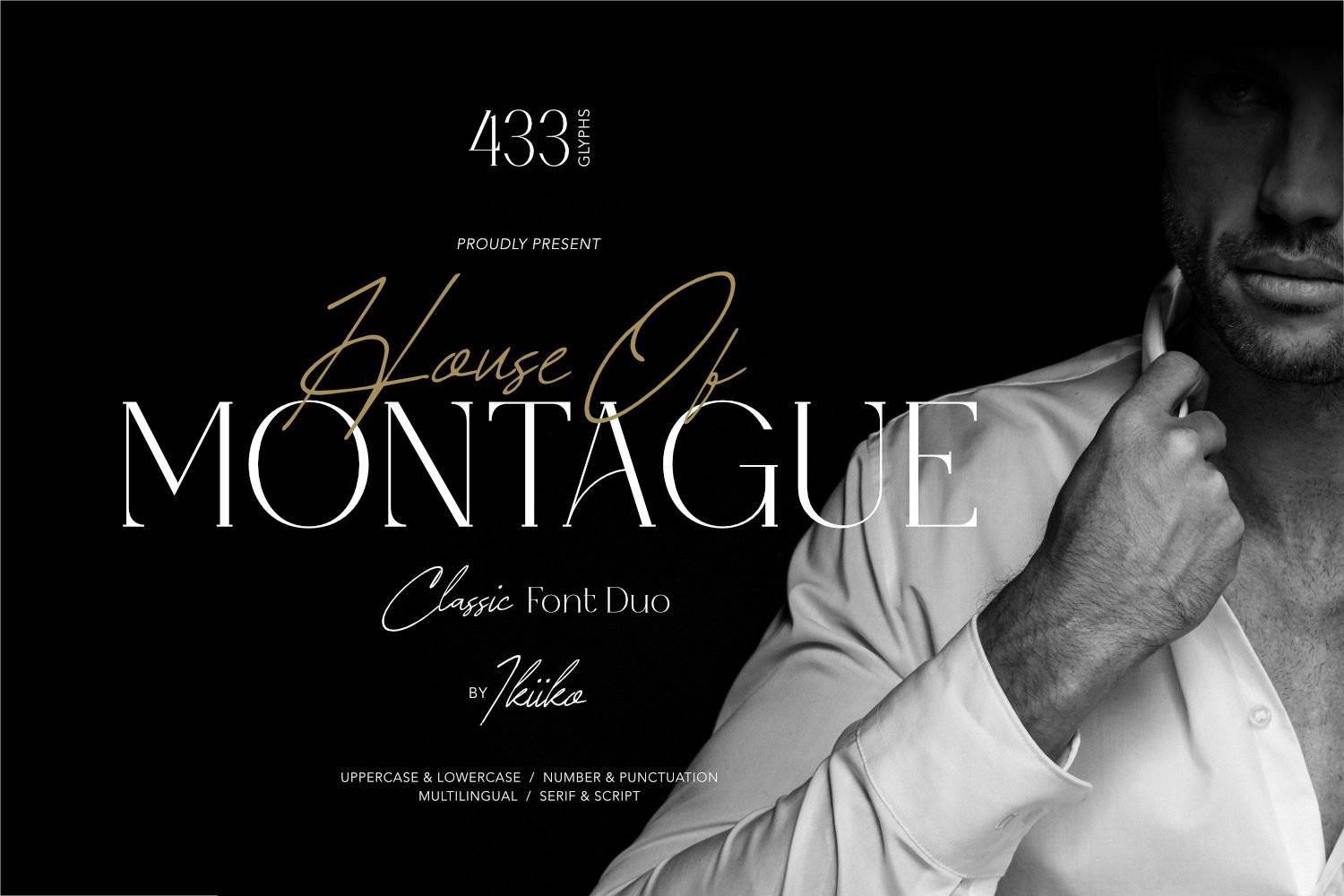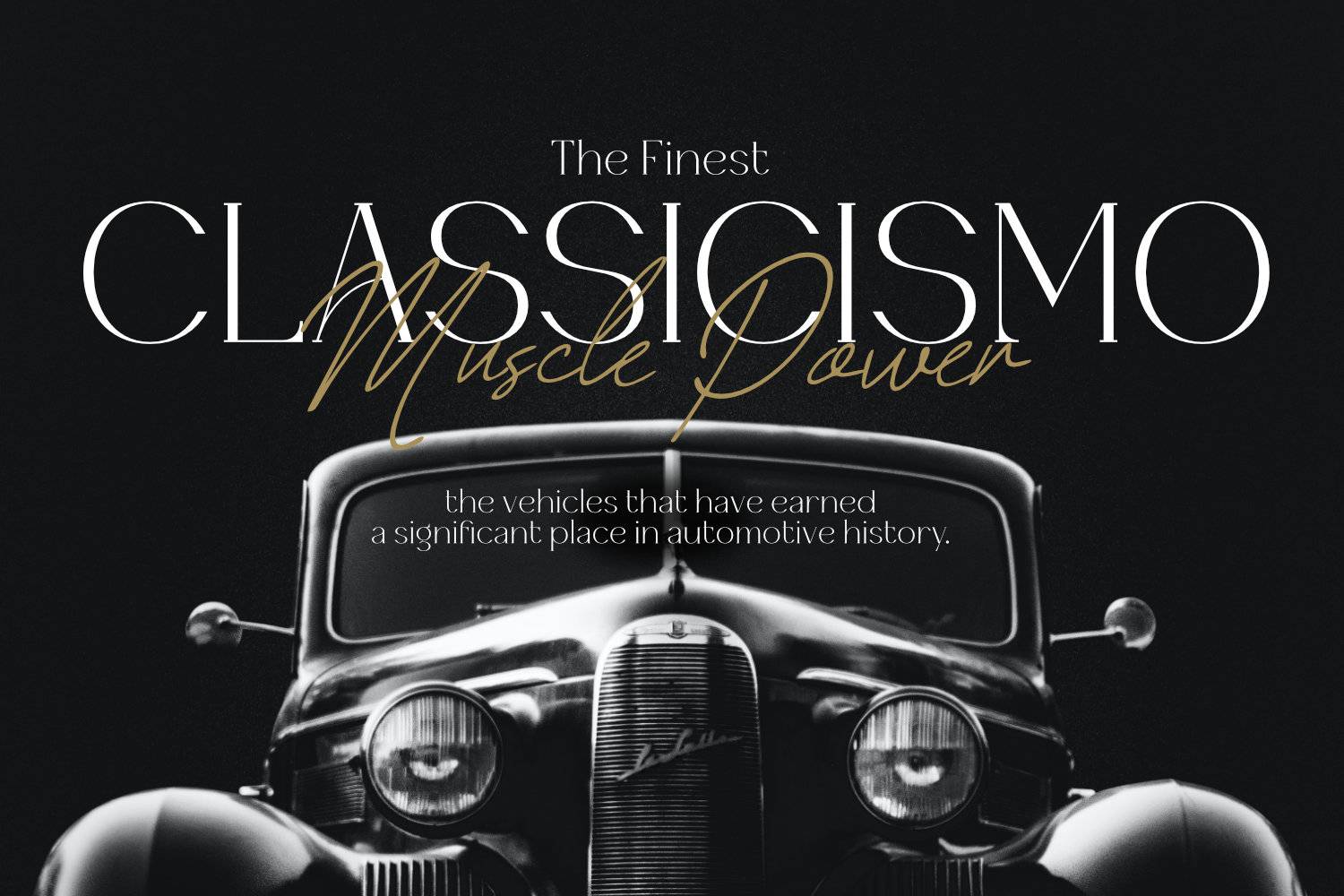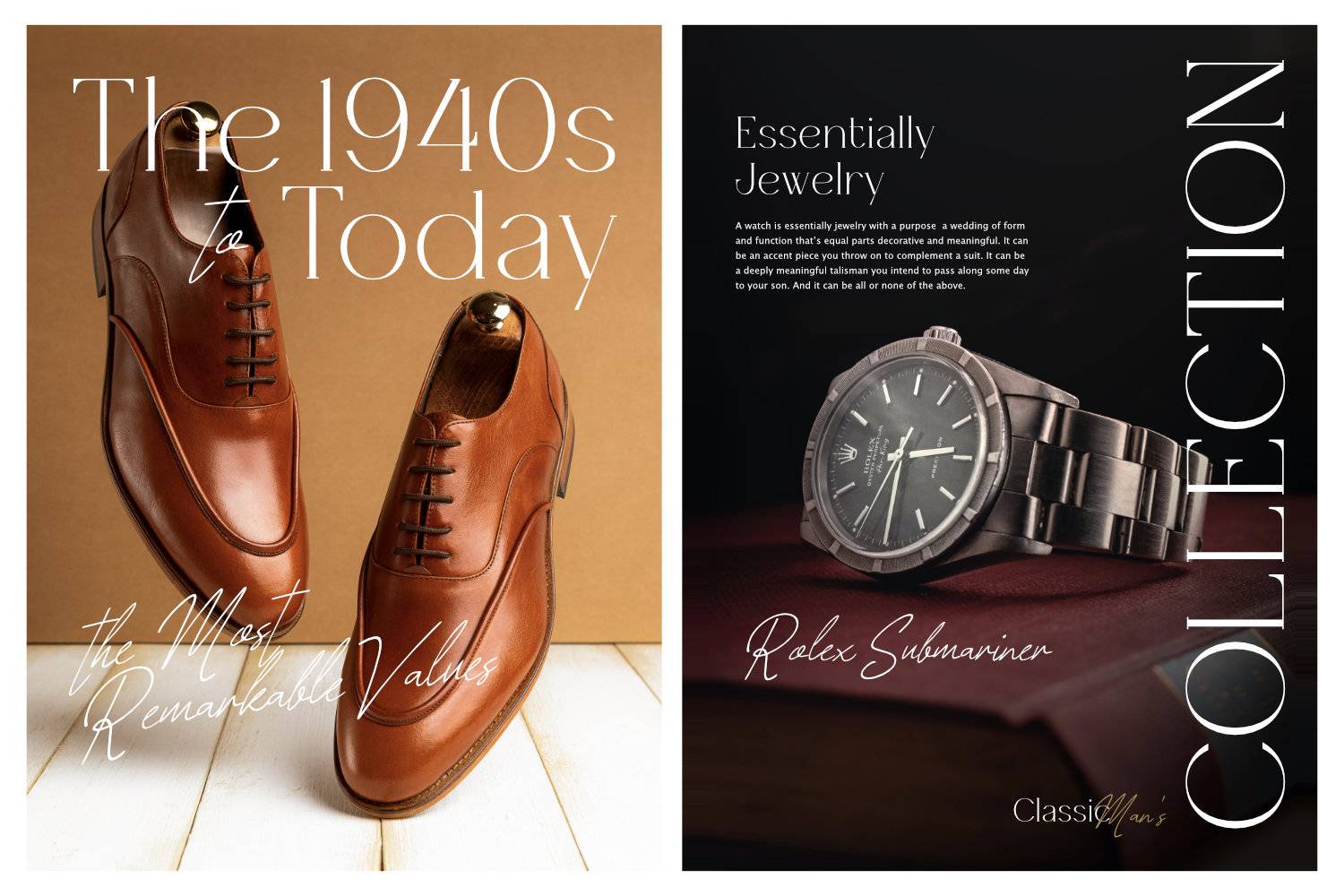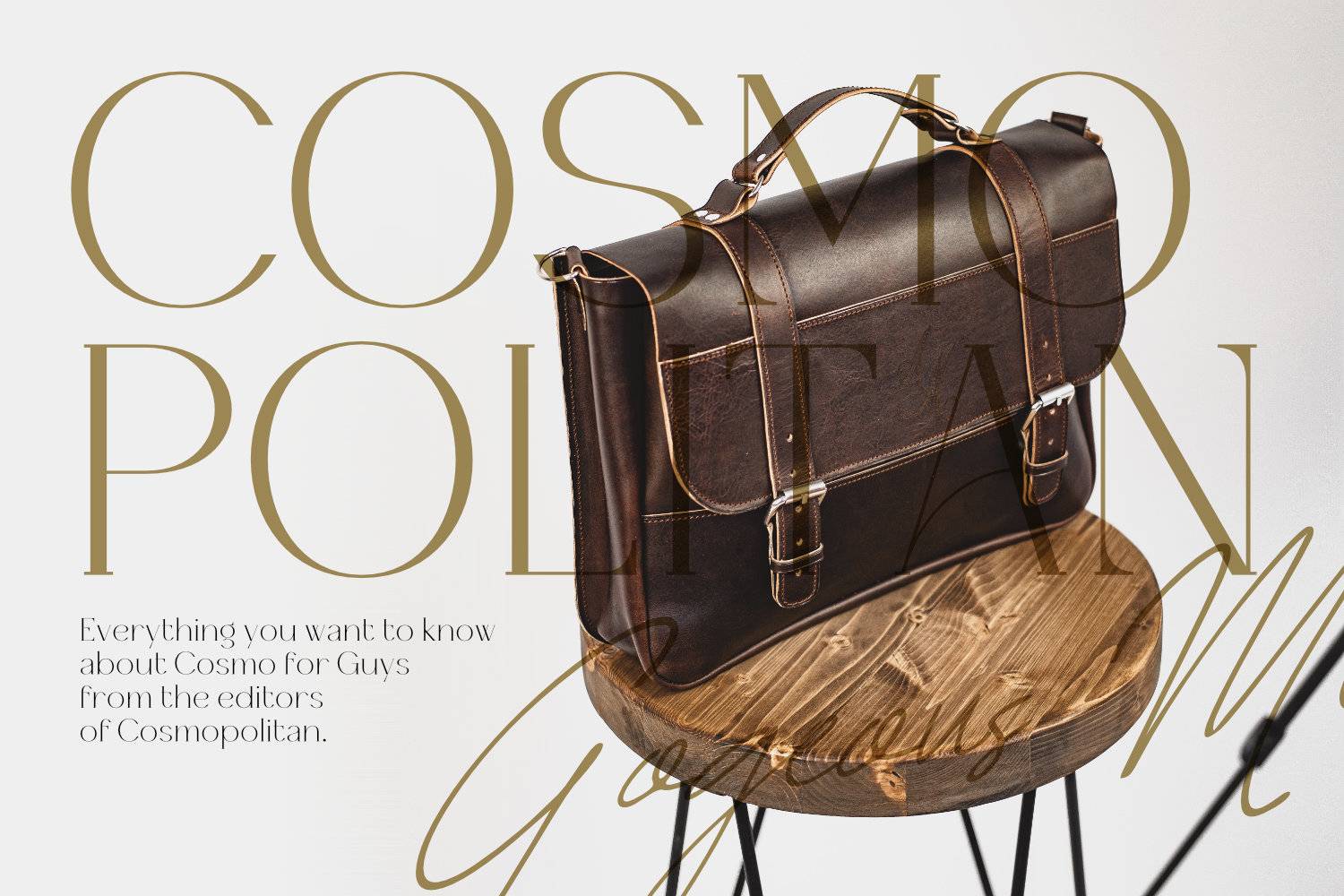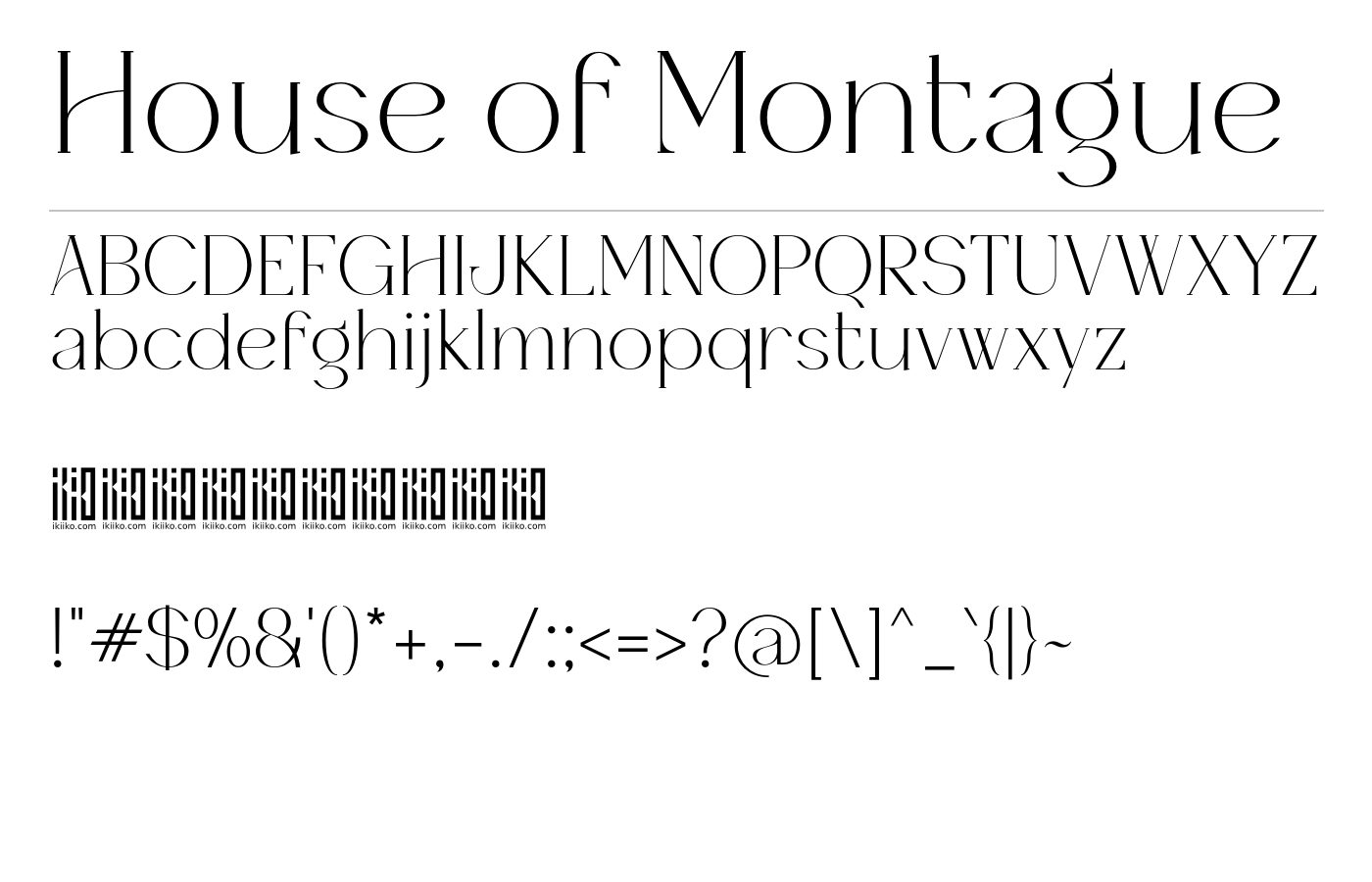
House of Montague is a delicate serif typeface characterized by its very high contrast between thin and thick strokes and elegant, slightly curved serifs. Its tall, narrow letterforms with refined details create a sophisticated, graceful feel perfect for luxury branding, fashion editorials, and upscale print designs. This font excels in headlines and logos where its stylish and modern yet timeless personality can shine.
House of Montague Font
| Designer | Wahyu Eka Prasetya, Andhika Pradana |